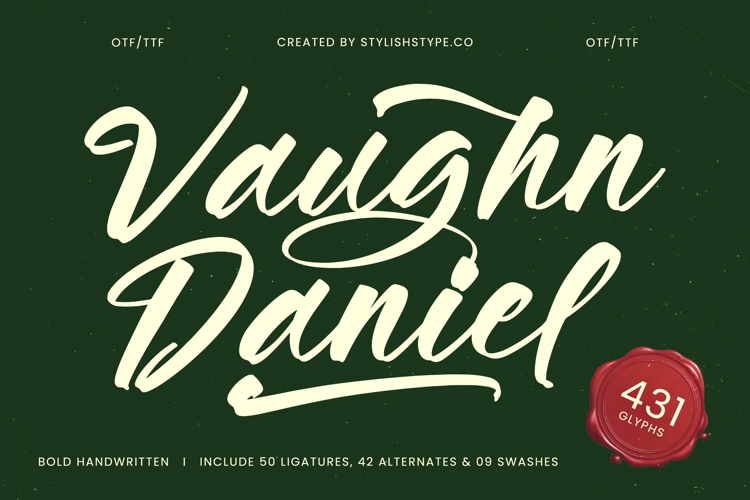
Vaughn Daniel - Bold Handwritten Font
Vaughn Daniel - Bold Handwritten Font is a powerful script typeface defined by its heavy weight and expressive, natural flow. Ideal for designers seeking a balance between casual spontaneity and refined professionalism, this font demands attention. Its smooth, brush-like execution ensures high-impact legibility, even at large display sizes, making it the definitive choice for titles and headers that need to resonate instantly.